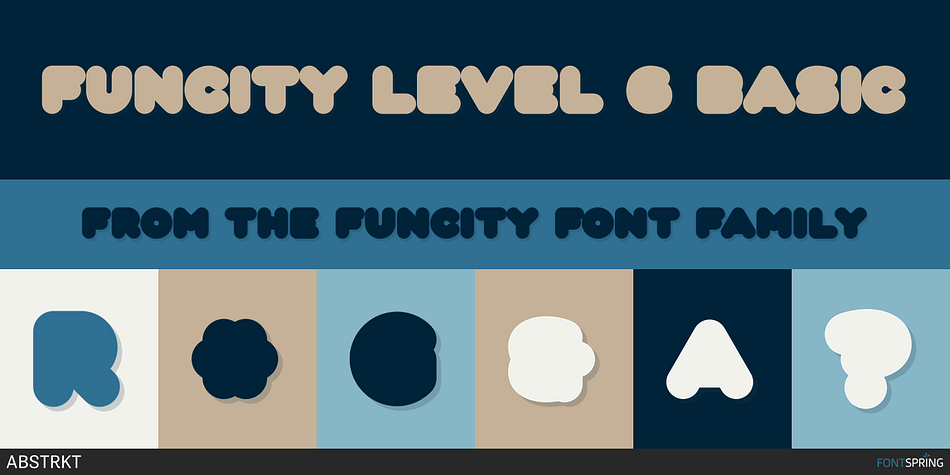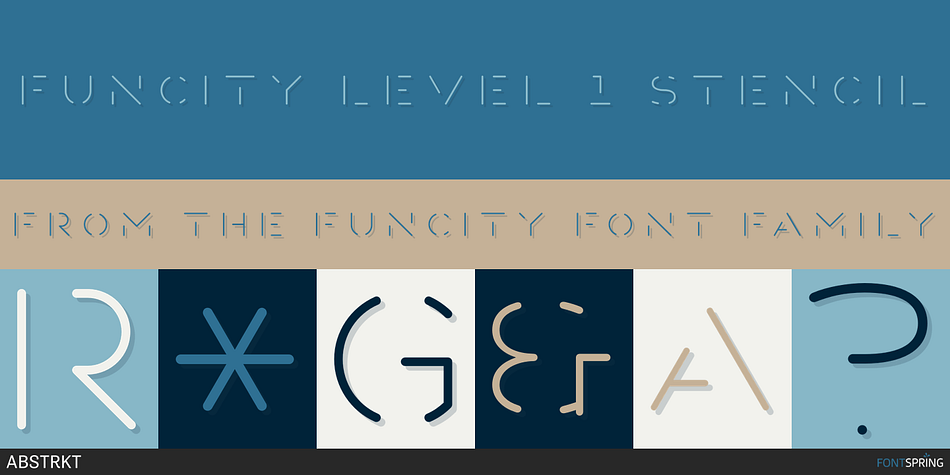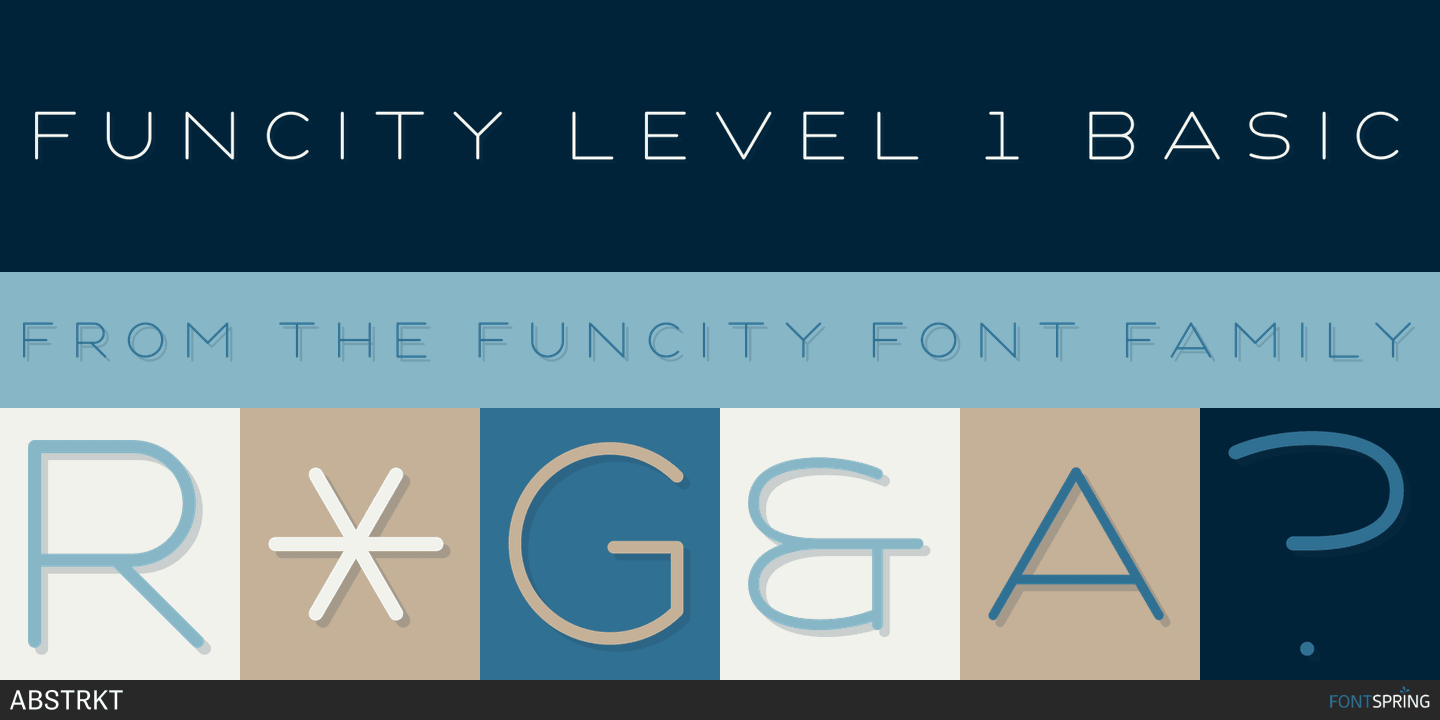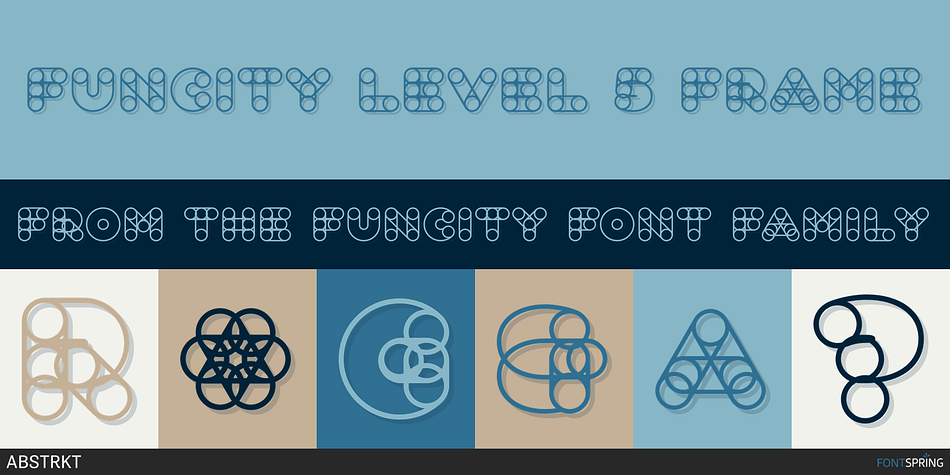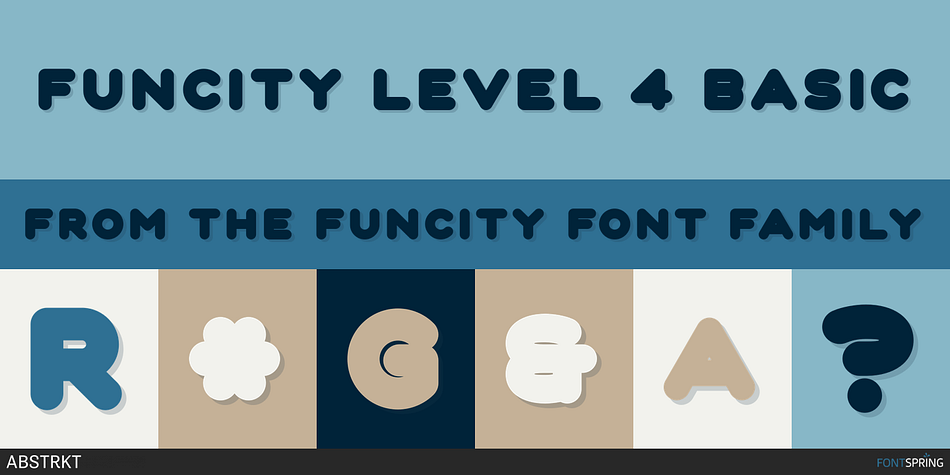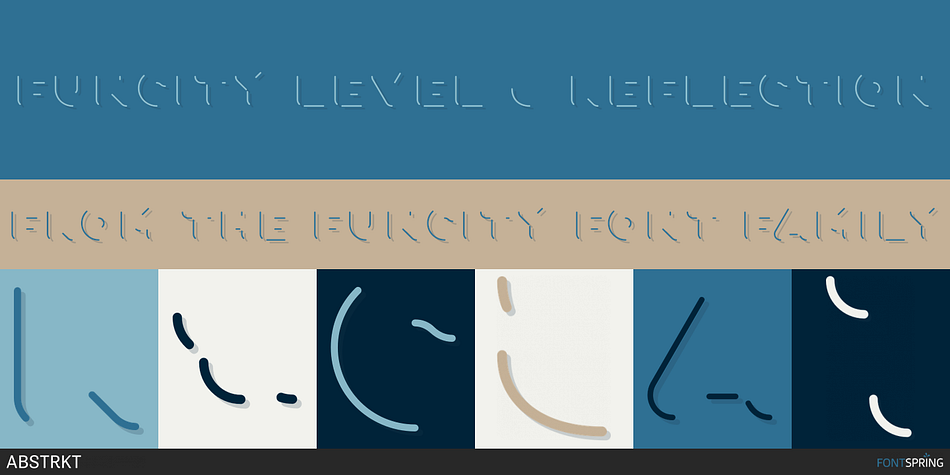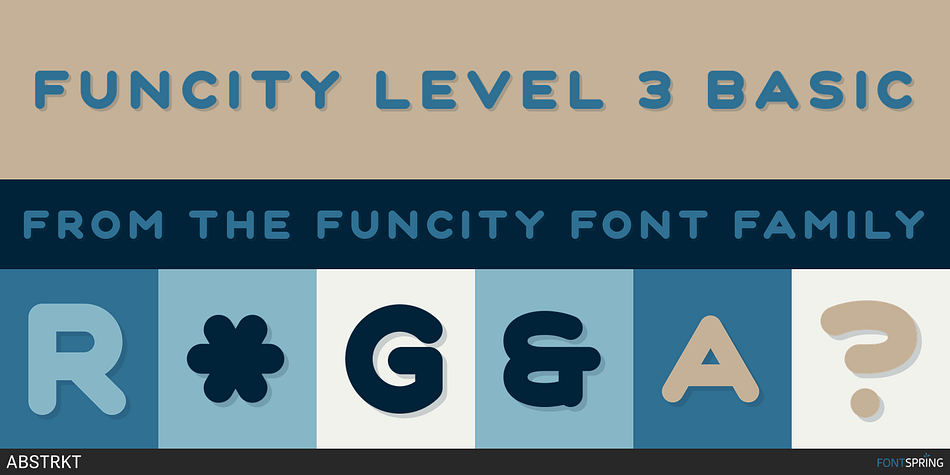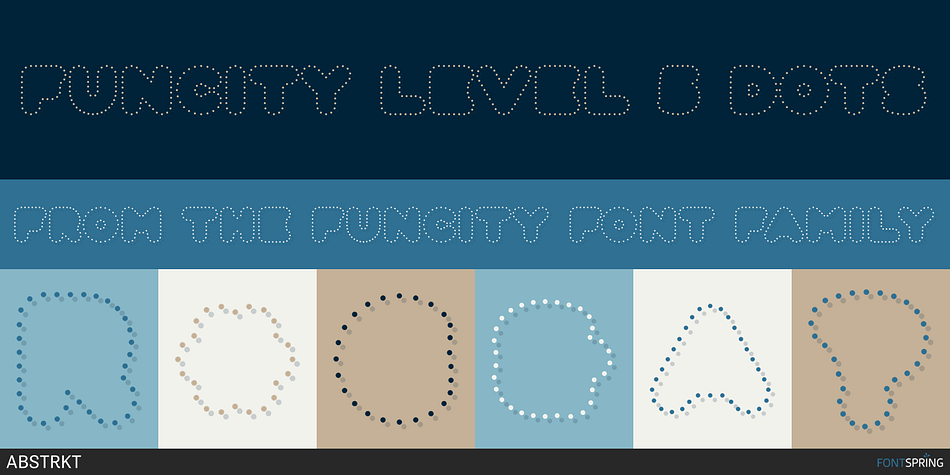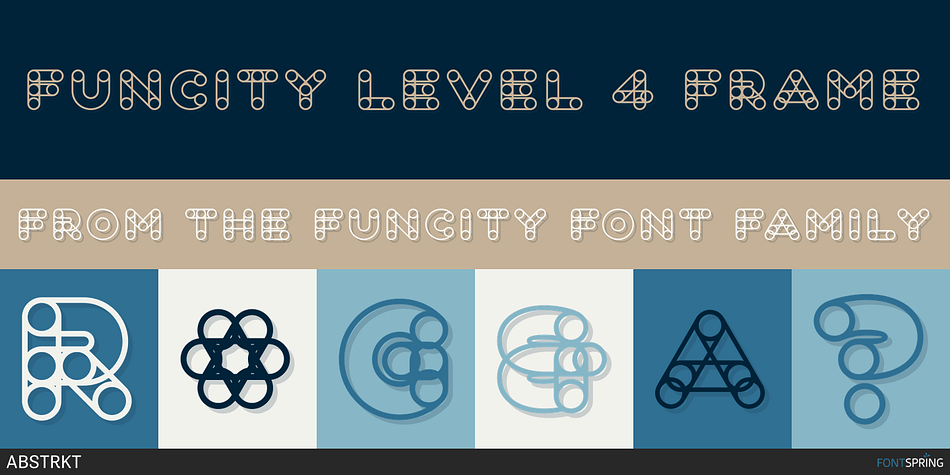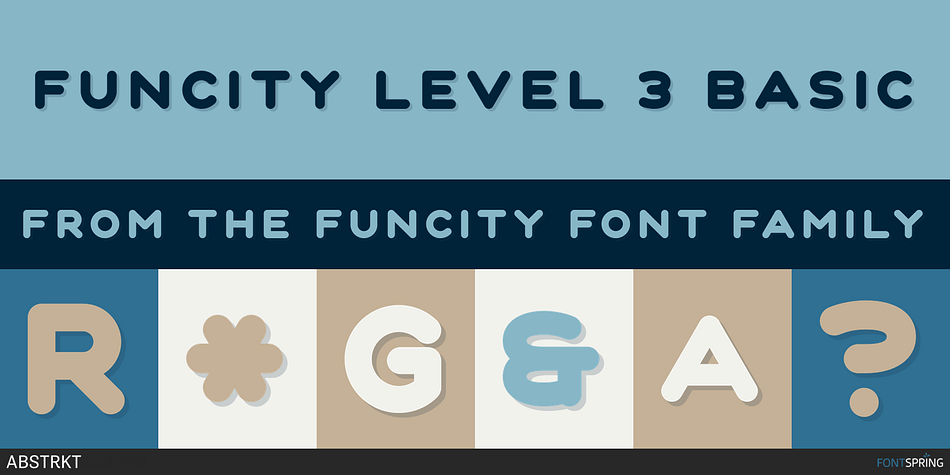
Designed by Roman Gornitsky, FunCity is a novelty, stencil and display sans font family. This typeface has twenty-two styles and was published by ABSTRKT.
FunCity is a family of typefaces designed for multi-layered use — each corresponding letter of every style has the same metrics, which creates possibility to use overlays. The total of 22 styles create almost endless number of variations.